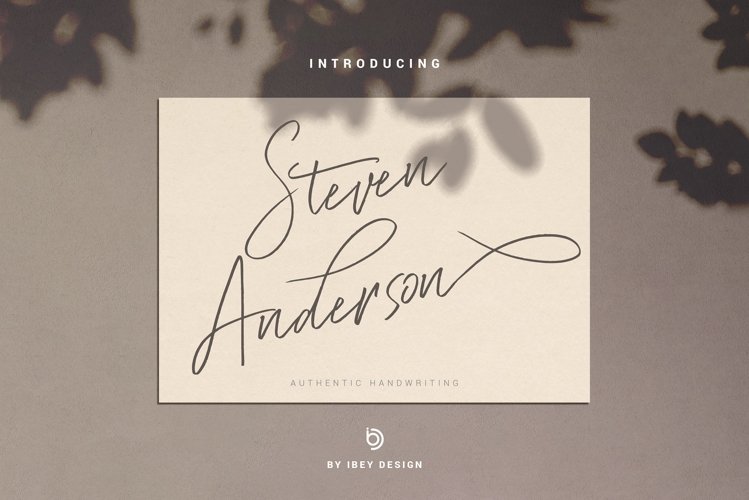
Steven Anderson - Signature Style Font
Steven Anderson Signature Style Font is a modern and unique handwritten script font. It is perfect for photography, watermarks, social media posts, advertisements, logos & branding, invitation, product designs, label, stationery, wedding designs, product packaging, special events, and much more!